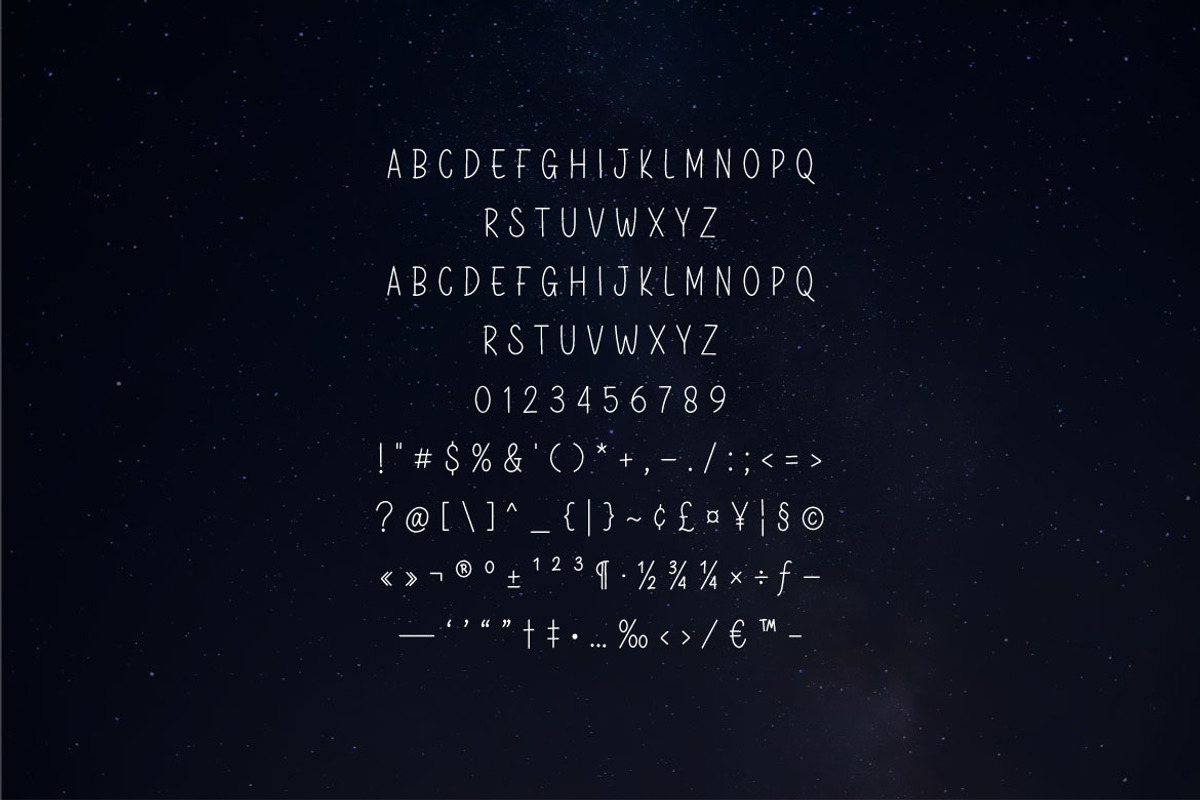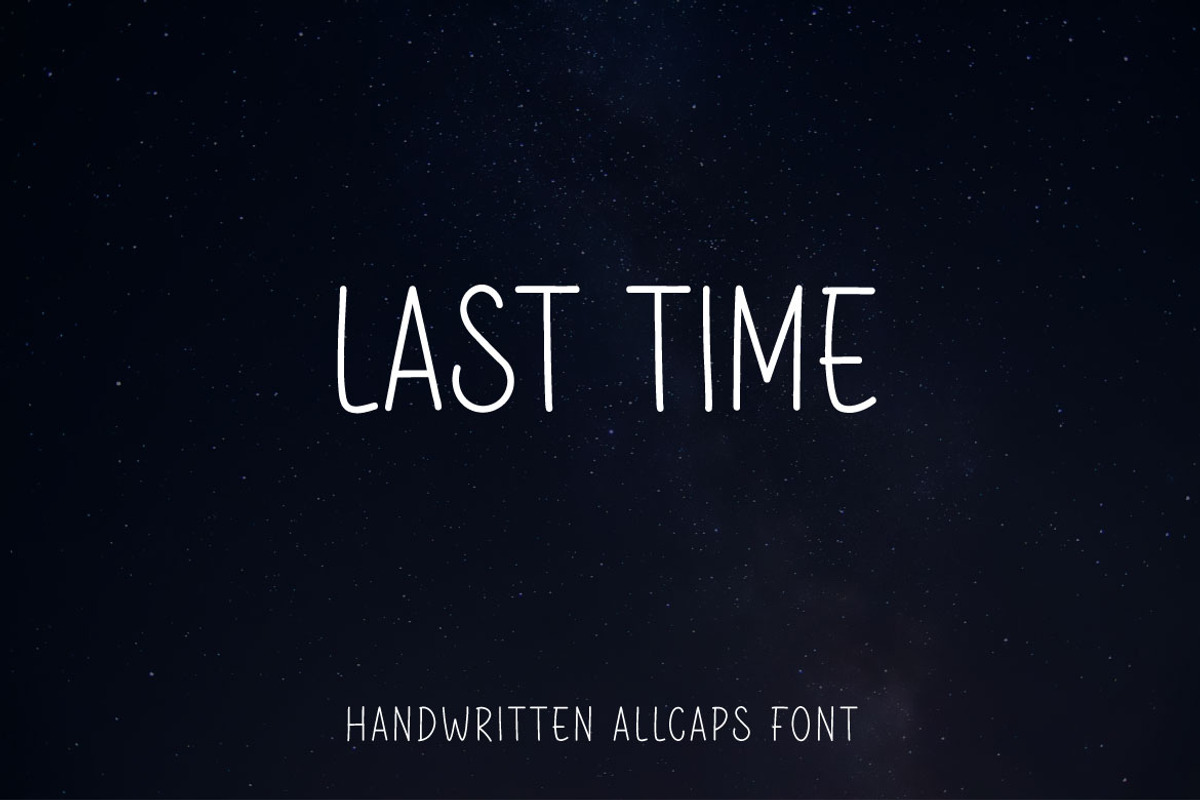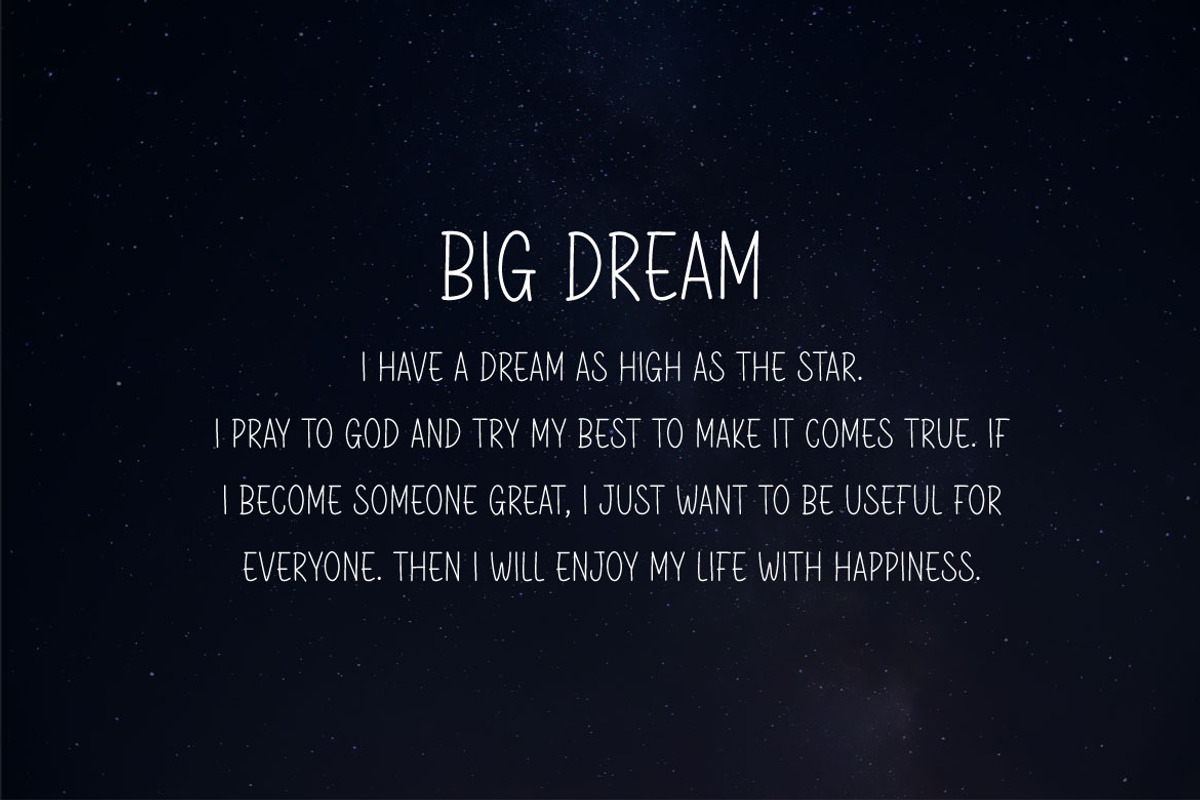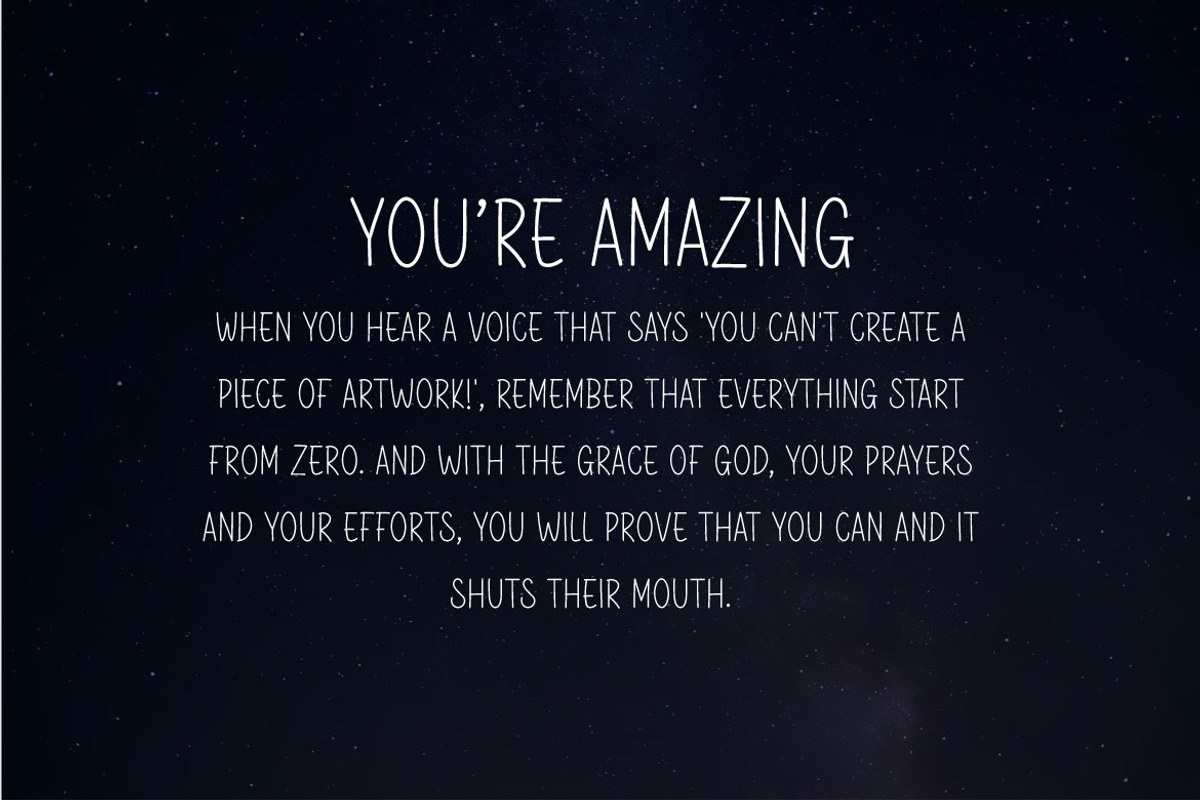
Last Time - Handwritten Allcaps Font
Hello! Last Time is a thin handwritten font with all capital letter style. Last Time can be used in any works such as flyer, book title, advertisement, social media content, logo and many more.